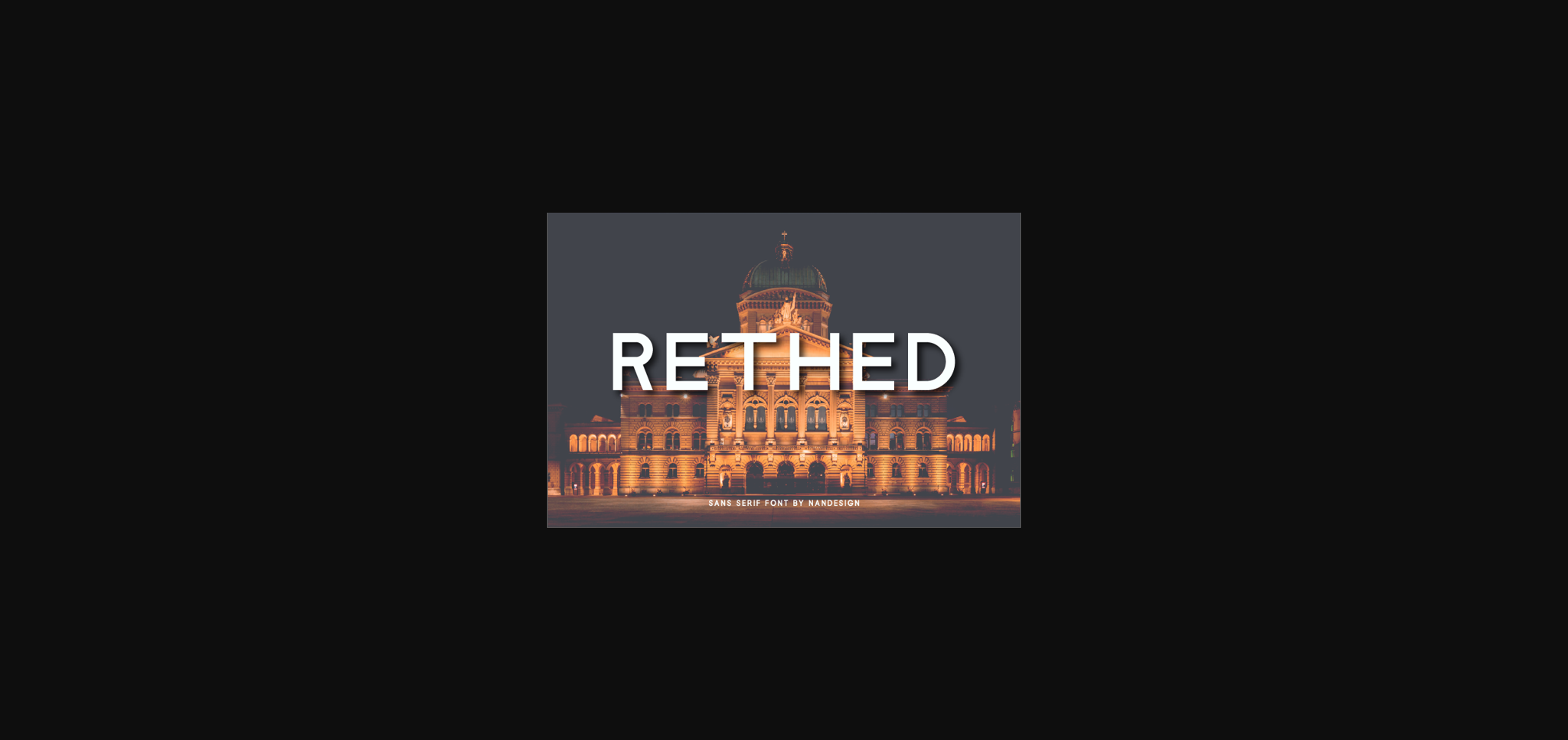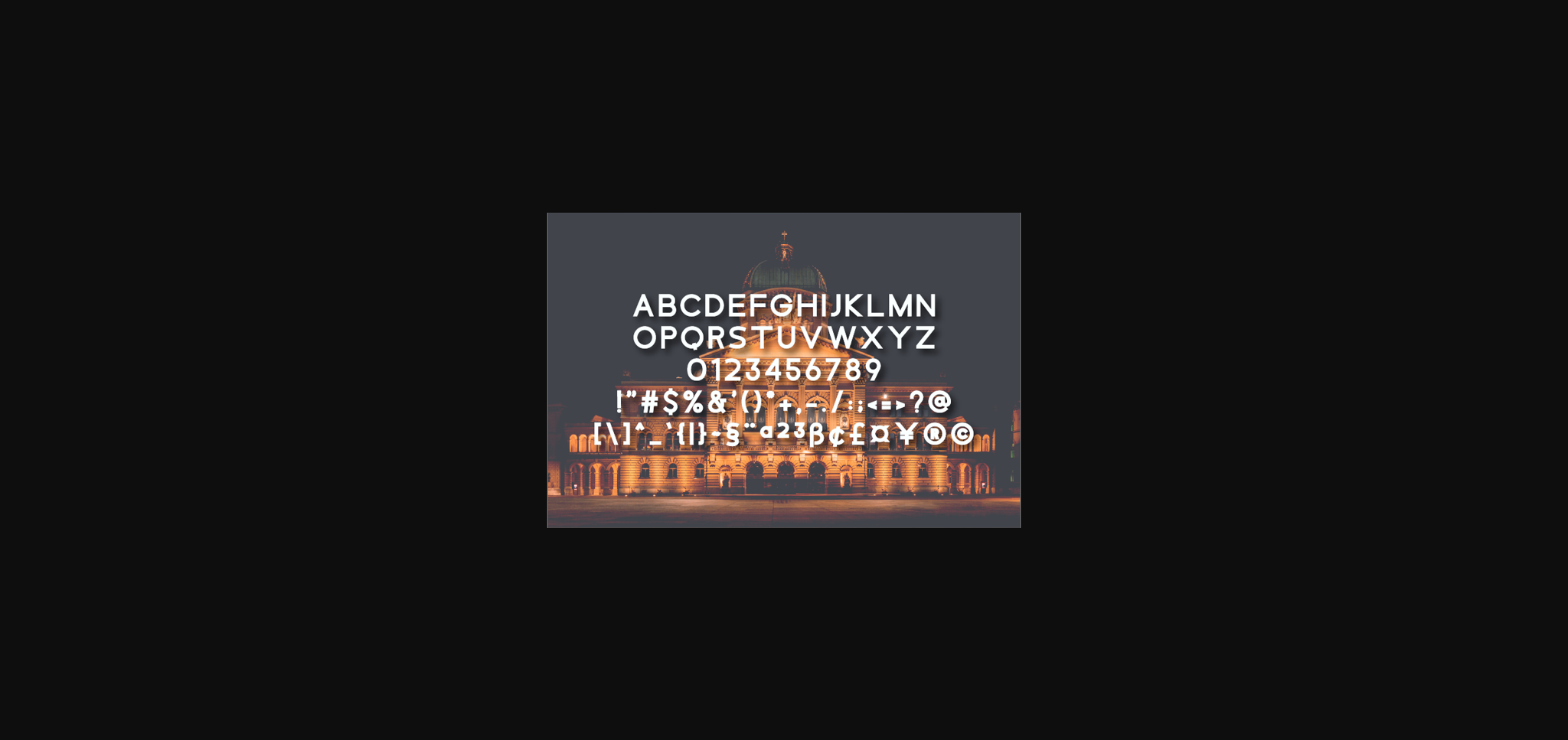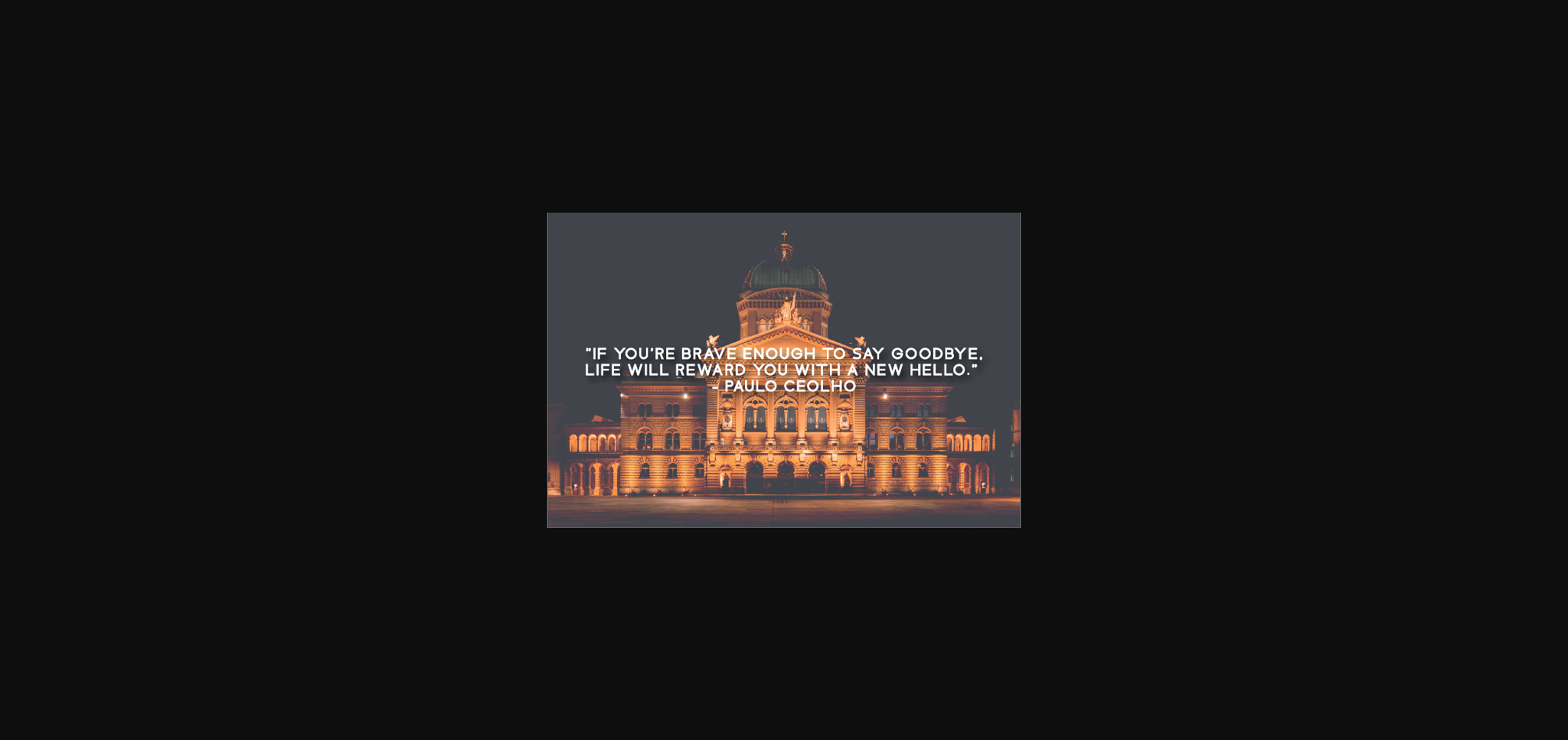
Rethed Font
About Rethed Font
Rethed is an authentic sans serif font. This simple and casual look will appeal to a wide range of crafty ideas, from letterheads and titles, to stationery.